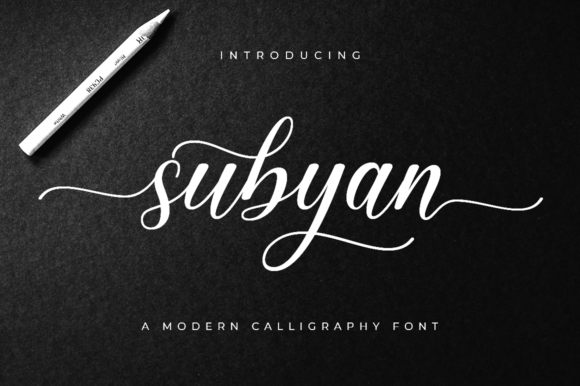
Embark on a calligraphic adventure with Subyan Font, an exquisite script font that breathes life into your digital creations. Suby Studio, the mastermind behind this gem, has meticulously crafted each letterform with a dynamic touch, resulting in a symphony of flowing lines and graceful curves. Prepare to be mesmerized by its alluring swashes, adding a touch of elegance to every word you type.
With Subyan Font, your words will dance across the screen, captivating your audience with its inherent charm. Whether you're designing logos, crafting social media posts, or creating eye-catching invitations, Subyan Font will elevate your designs to new heights. Its classic and fancy style effortlessly complements a wide range of projects, making it the perfect choice for designers of all skill levels.
Immerse yourself in the world of Subyan Font and let your creativity flourish. Its versatility knows no bounds, allowing you to effortlessly blend it with various design elements. Let Subyan Font become your muse, inspiring you to create stunning visuals that leave a lasting impression.
So, dive into the enchanting world of Subyan Font today and unleash the boundless potential of your imagination. With every stroke of your keyboard, you'll weave a tapestry of words that captivates and inspires. Experience the transformative power of Subyan Font and elevate your designs to new heights of artistry.